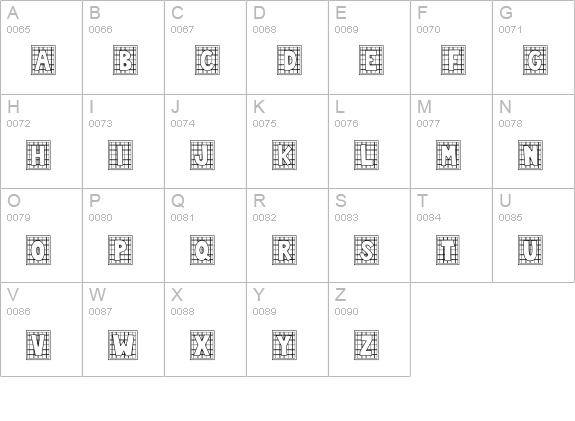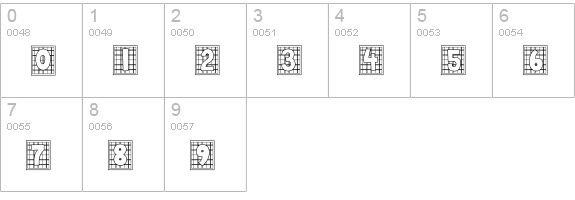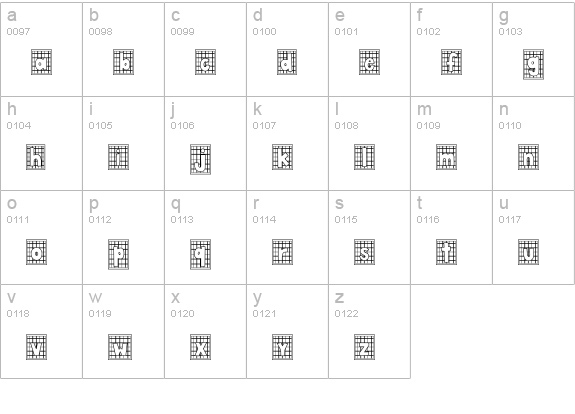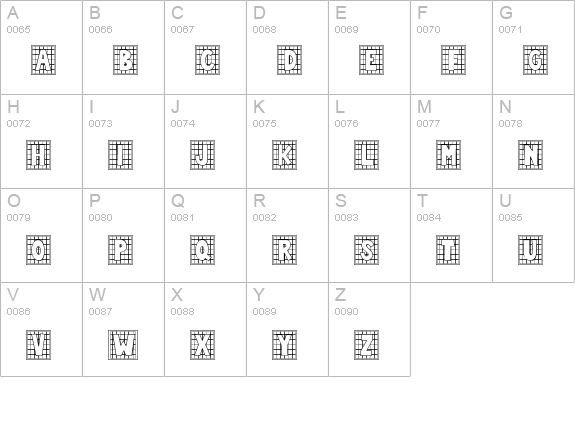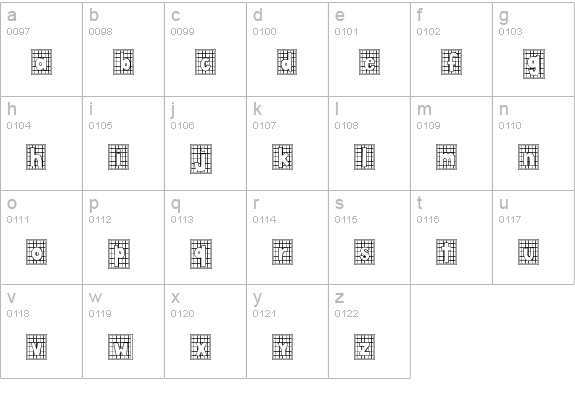
CK Hunting Font Details
Introducing CK Hunting font, a bold and adventurous typeface designed for those who seek a touch of rugged charm in their designs. This unique font captures the spirit of the great outdoors with its strong, angled strokes and rustic appeal. Whether you're working on a project related to hunting, camping, or outdoor exploration, CK Hunting font will bring a sense of wild beauty to your creations. What's even better is that CK Hunting font is completely free to download! You can easily get your hands on this versatile typeface at FontsMarket.com and start incorporating its powerful presence into your design projects. Embrace the untamed essence of CK Hunting font and let your creativity roam free in the wilderness of design possibilities.